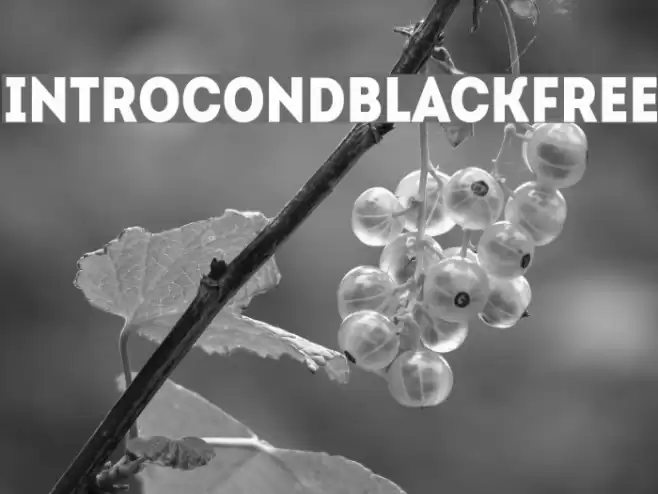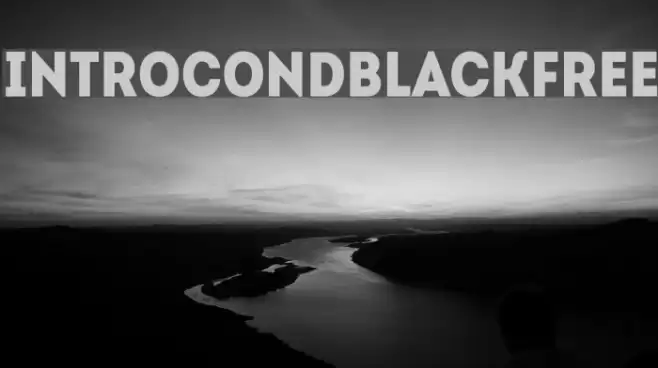
IntroCondBlackFree Font
IntroCondBlackFree Description
This font features a bold and impactful design, characterized by its thick, uniform strokes and condensed letterforms. The uppercase and lowercase letters maintain a consistent weight, creating a strong visual presence. The numerals are equally bold, ensuring readability and emphasis. The special characters, including punctuation and symbols, are designed to match the overall boldness, making them stand out effectively. This font's condensed nature allows for efficient use of space while maintaining legibility, making it suitable for attention-grabbing headlines and titles.
A bold, condensed font with strong, uniform strokes for impactful design from Uncategorized fonts.
- Proposed Projects: Ideal for headlines, posters, branding, and any project requiring a strong visual impact.
- Width: Condensed
- Character Spacing: Tight